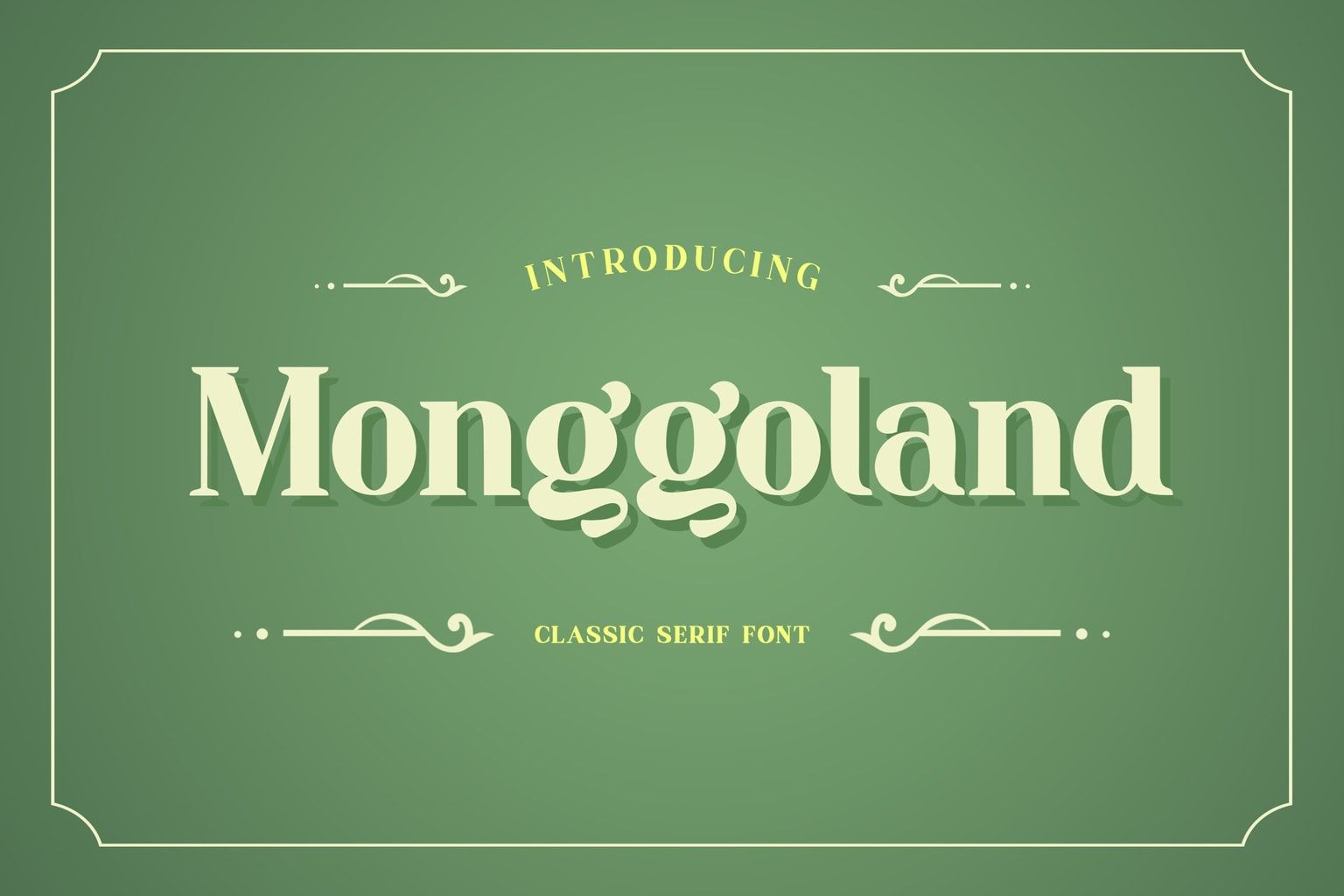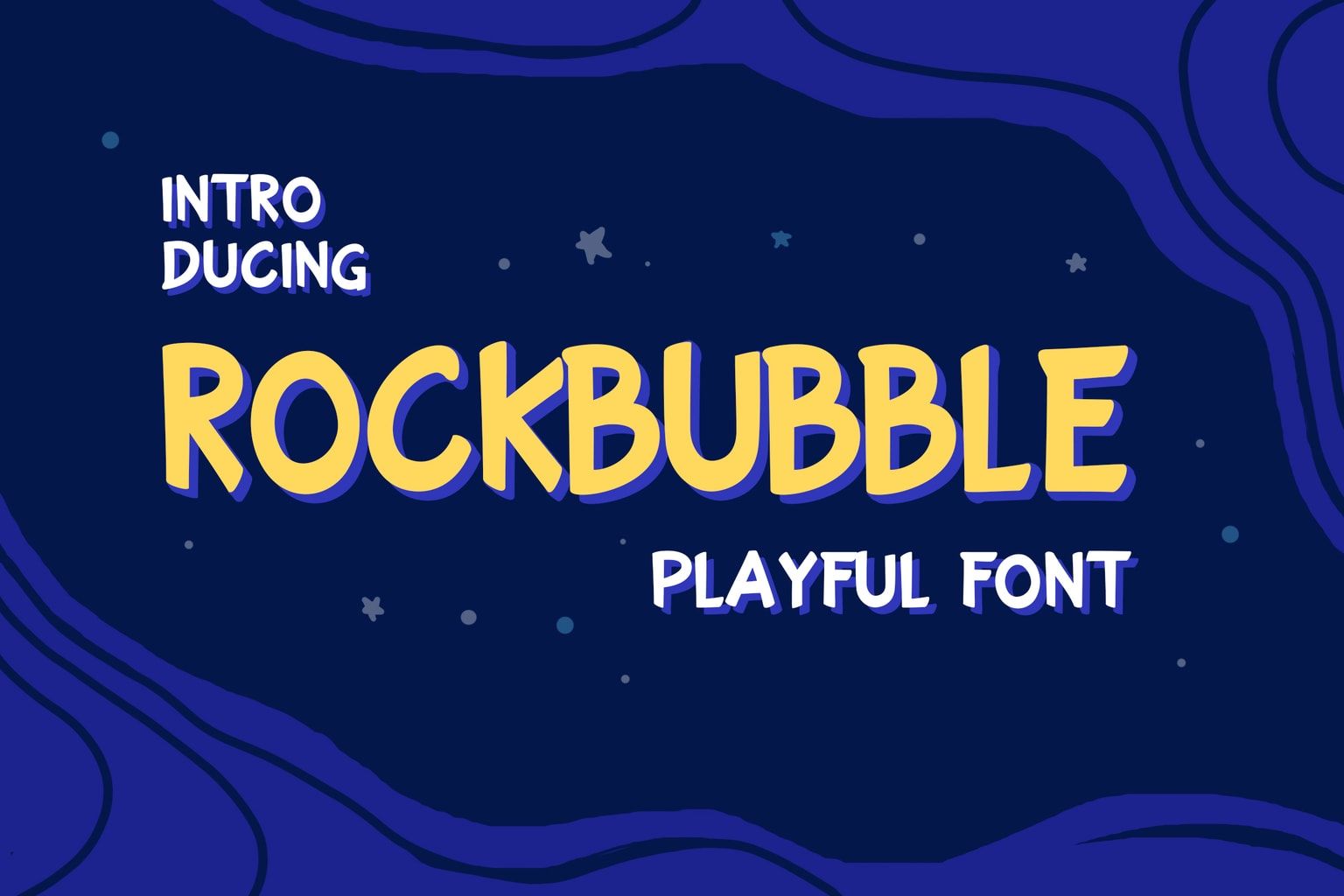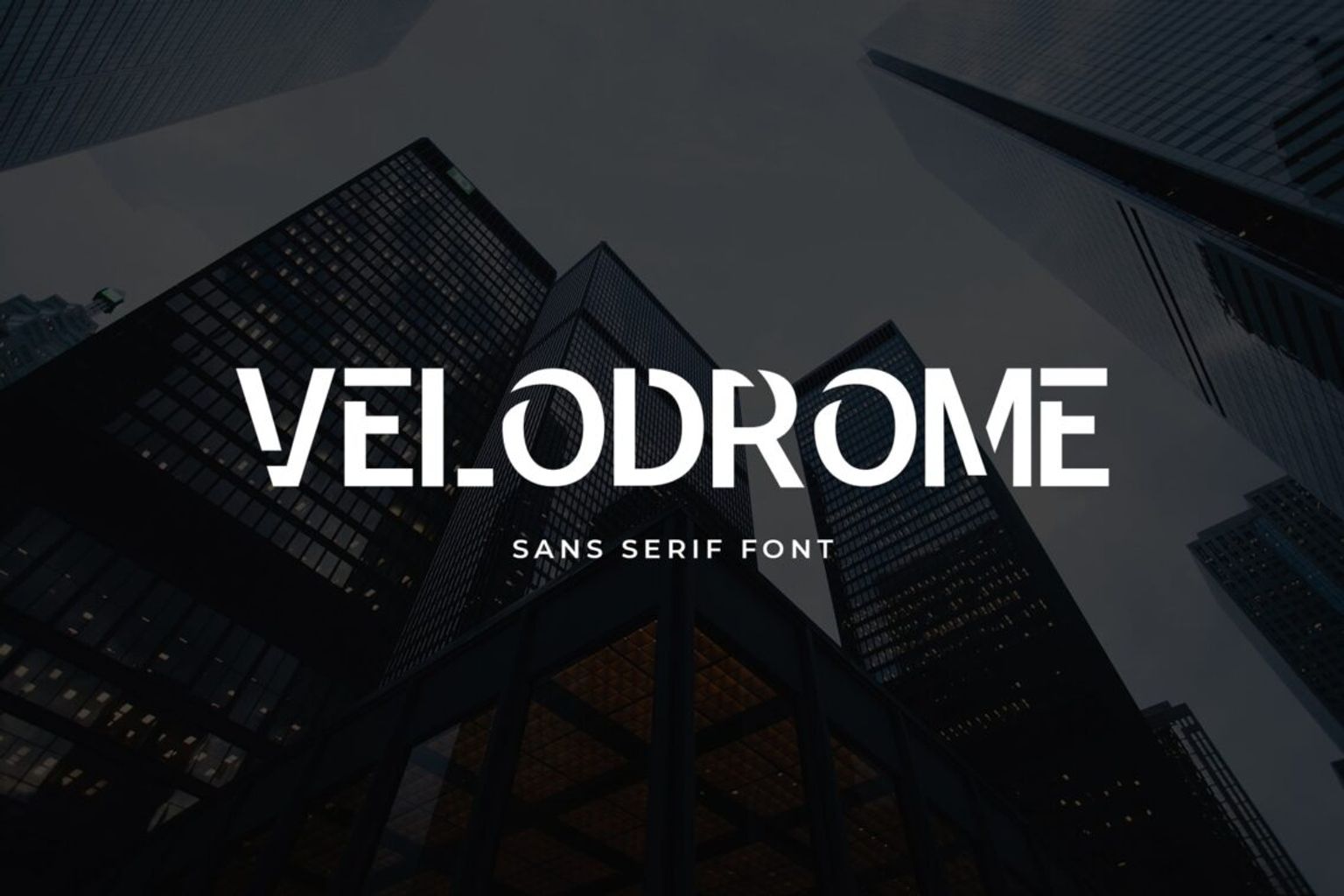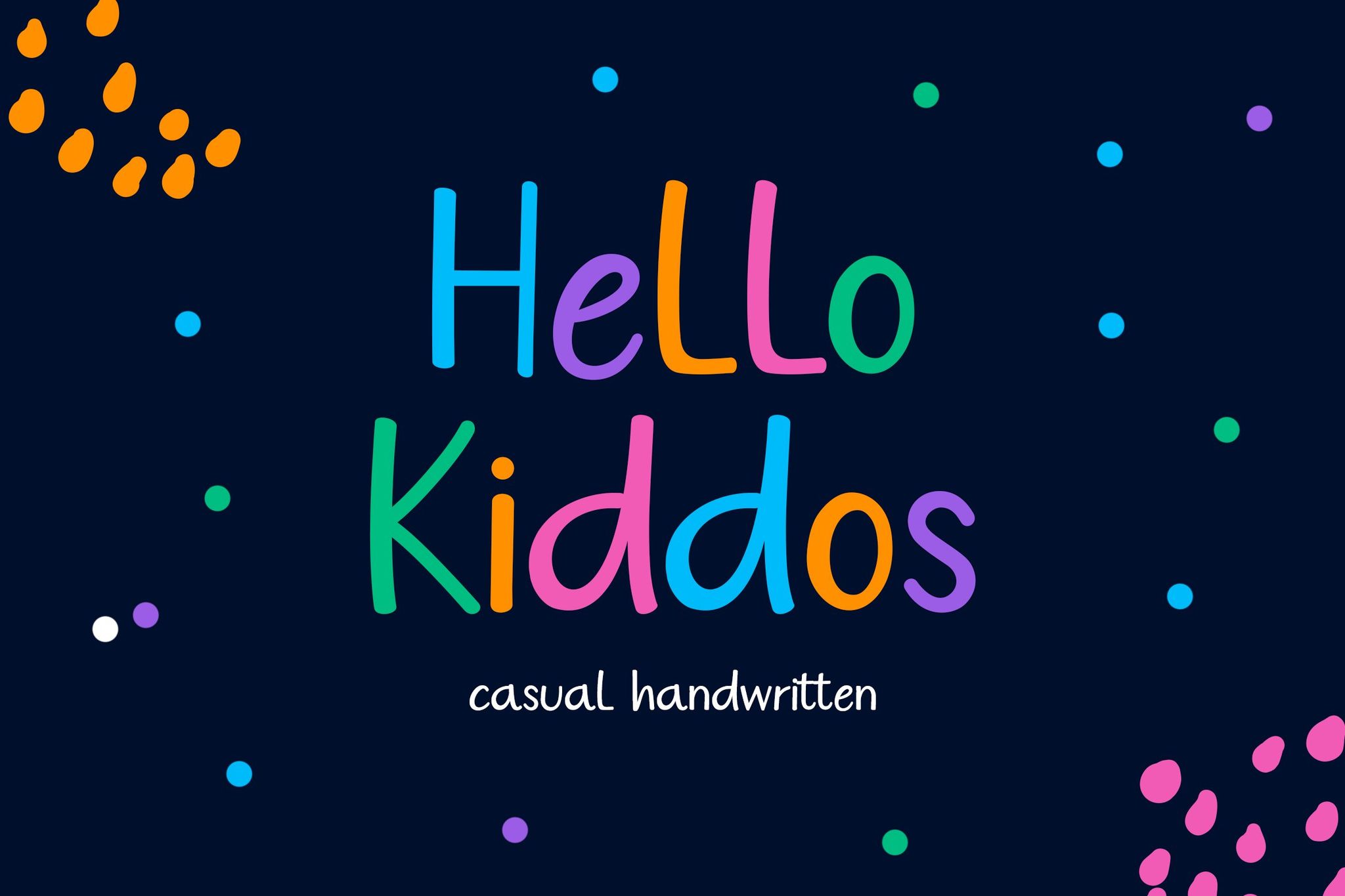
T Shirt Design: Fonts and How to Design
The font is an essential component in the t shirt design (t shirt font designs, vintage t shirt font, t shirt font styles, lettering font style for t shirt, retro t shirt font) like this. It must have a trendy appearance and resonate with the audience to successfully attract people’s attention. To accomplish that objective, you will need a typeface that has a distinctive look.
We did some digging and came up with a couple of those one-of-a-kind typefaces that you may use to produce some great t-shirt graphics. These best font for t shirt design is ideal for creating a wide variety of t-shirts, including hipster hoodies, casual t-shirts, tank tops, and a great deal more. Have a peek.
1. Monggoland Elegant Serif Font
Monggoland Elegant Serif Font
This is a handwritten typeface with a simple and unpretentious look. This typeface has a distinctive lettering style that separates it from other options on the market and will help your T shirt design stand out. The typeface contains capital and lowercase letters and swashes that can be used to style the letters.
2. Velodrome Display
Velodrome Display
The Velodrome is a typeface that has been made by hand and features a design that is rough and bumpy. This typeface works wonderfully for creating T shirt design such as badges and titles of all kinds. It features an inventive lettering design that will also lend a look of individualization to any projects you create using it.
3. Rockbubble Sans Serif Font
Rockbubble Sans Serif Font
This font should be able to impress you if you want the font on the t-shirt to look robust and forceful. Your t-shirt will have the appearance of being roughed up and painted as a result. Check it out for yourself.
4. Hello Kiddos Display Font
Hello Kiddos Display Font
This typeface would be ideal for use on a baby T shirt if you are in the market for one. This font is perfect for a baby’s room because it is adorable down to the tiniest detail. The presence of a sense of enjoyment, colorfulness, and brightness would cause the baby to become even cuter than it already is. Consequently, consider this before printing the shirt, and think about the adorable quote you want to place on it.
5. Woreta Karlina Serif Font
Woreta Karlina Serif Font
Using this font in your design may make it simpler to communicate the meaning of what you’re trying to say. You may use it to make an incredible display, labeling, clothes, movie screen, poster, movie titles, gigs, album covers, logos, and many other things.
Additionally, it has the potential to be useful for texts that range from lighthearted to informal. Because it is neat and unobscured, anyone who views it will have no trouble understanding what is written on the shirt. In addition, it can be utilized by either males or women. Never be afraid to experiment by combining one typeface with another.
6. Wavelight Sans Serif Display Font
Wavelight sans Serif Display Font
This typeface is striking and contemporary and works wonderfully for various packaging and branding ideas. Make stunning designs for t-shirt fronts, labels, and logos, as well as billboards, banners, posters, and more, with the help of this typeface.
How To Design The T Shirt?
Zanie Brovia Display Serif Font - creative t shirt design ideas
Zanie Brovia Display Serif Fot
Your idea for a t shirt design needs to be consistent with the brand in every aspect, from the design to the production to the messaging. Here are ten ways to make the design of the t-shirts your brand sells more memorable for your staff and your customers.
1. Go for minimalism
Less is more. The minimalist design idea involves displaying fewer elements to draw attention to those more fundamental to the overall composition. It could be only one word written in a tiny font or graphic detail, but any of these could accomplish the work.
2. Don’t overbrand, don’t under-brand
You don’t want to look like you’re trying too hard by putting all your brandings on the t shirt design. Even though your design may not be simple, that doesn’t mean it should be too much.
3. Avoid the trends
You do not want the person wearing your brand’s t-shirt to miss it in the sea of other people. For instance, if your establishment is located in Hawaii, you probably don’t want the wait staff to be attired in Hawaiian t-shirts because that’s likely what some of your customers will also be wearing. By bucking the norm, you may make a statement without appearing unfashionable.
4. Prioritize the belief
Customers will rather wear what you stand for than your business’s logo and mascot if you are a new brand just starting. This is especially true if your brand is getting its start. Your clients are not your billboards; they are your partners in disseminating your message and advancing your beliefs.